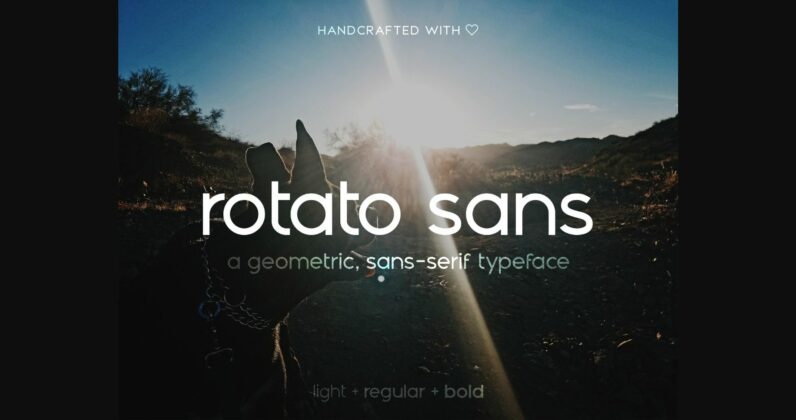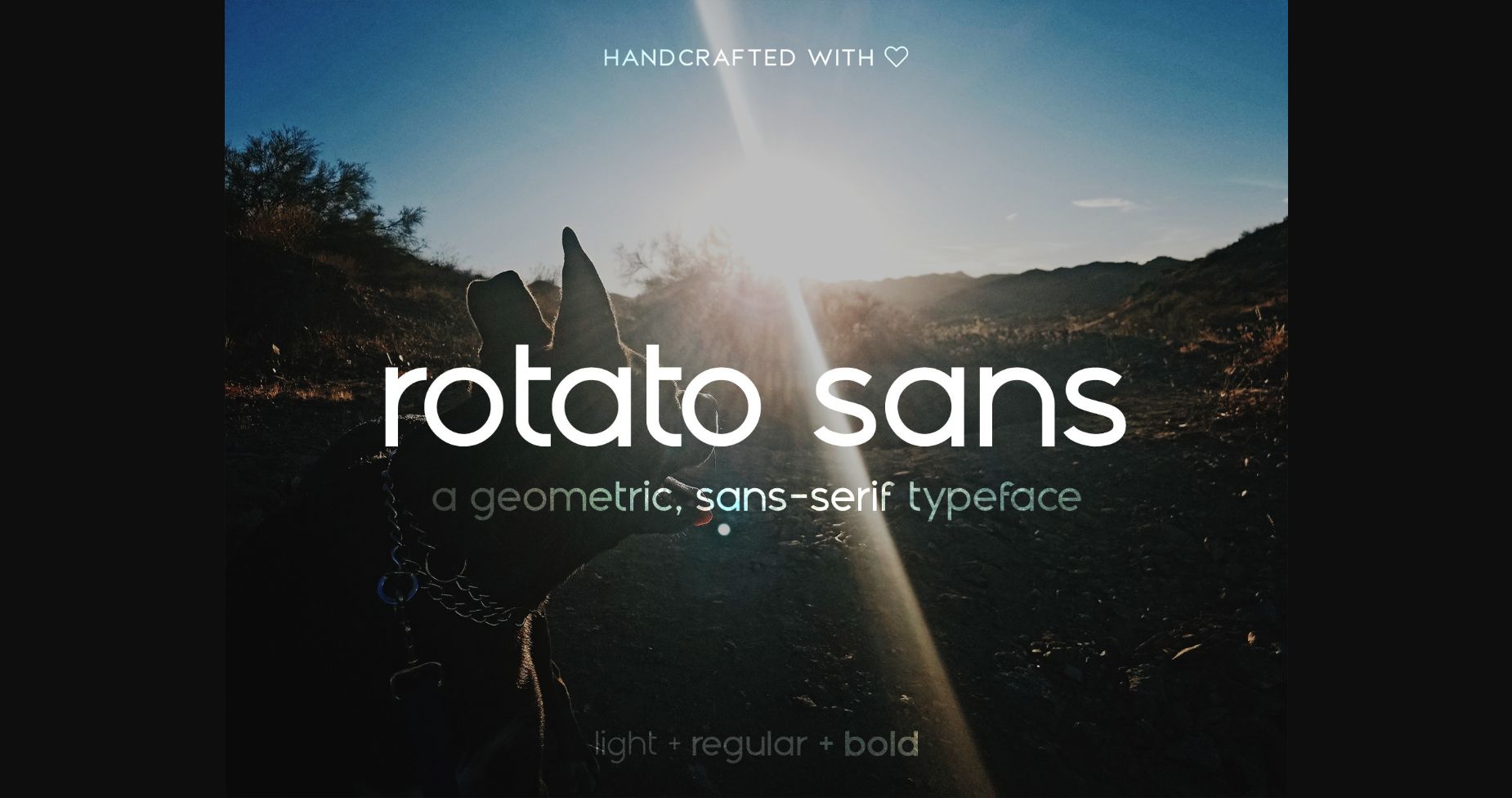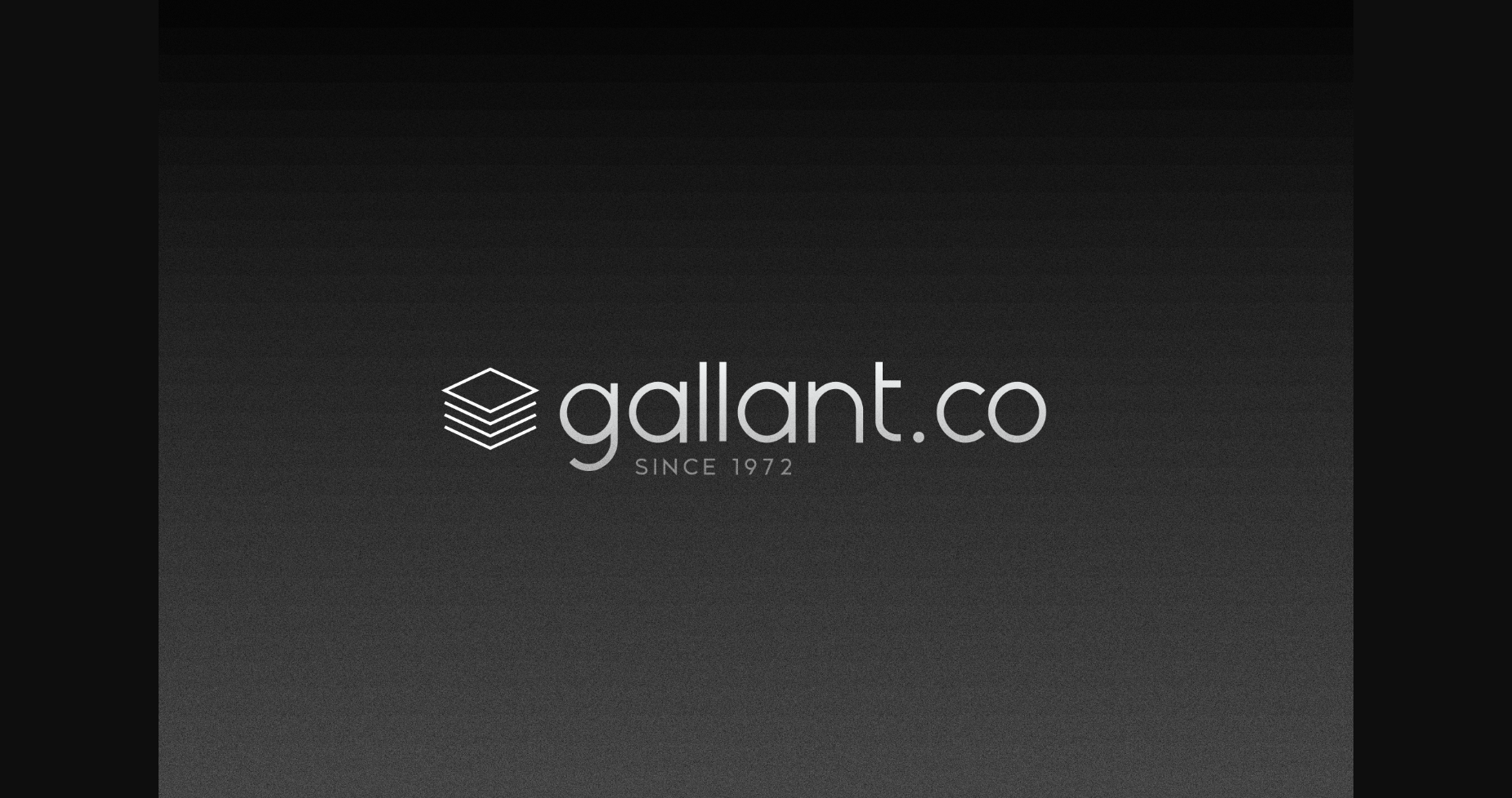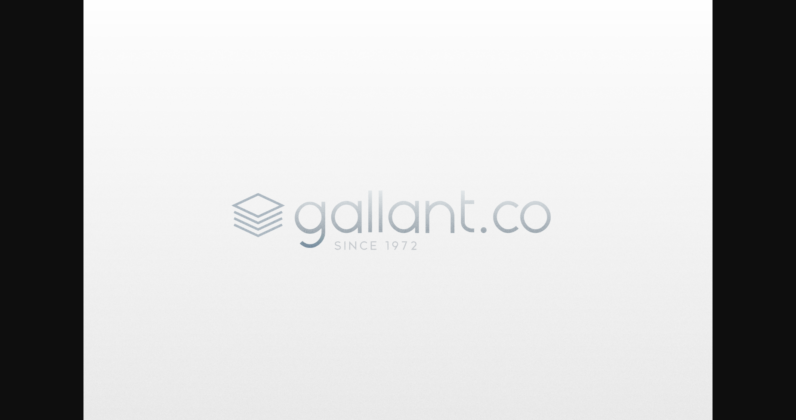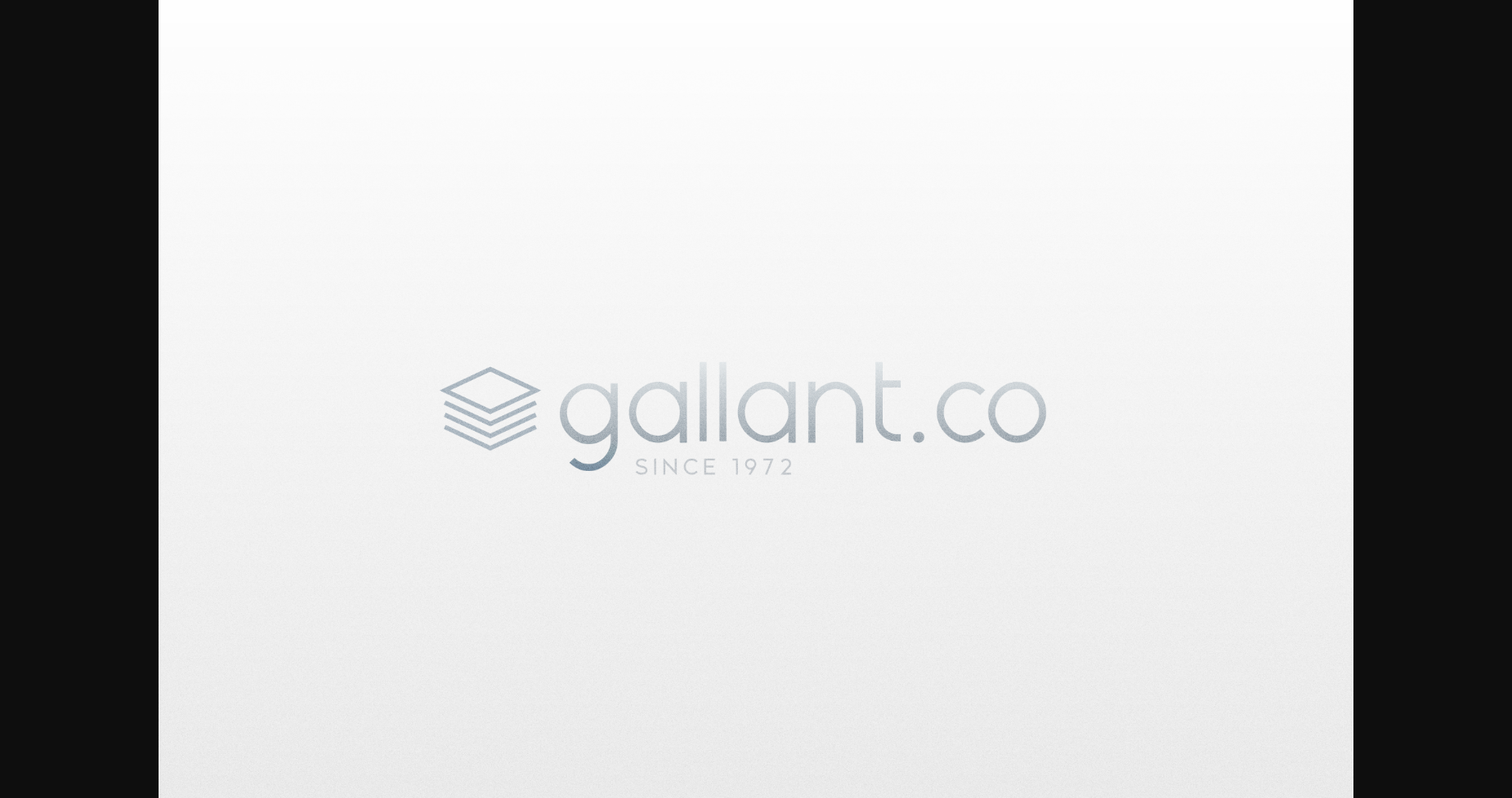
About Rotato Font
Rotato is a modern and versatile sans serif font. It can easily be matched to an incredibly large set of projects, so add it to your creative ideas and notice how it makes them stand out!